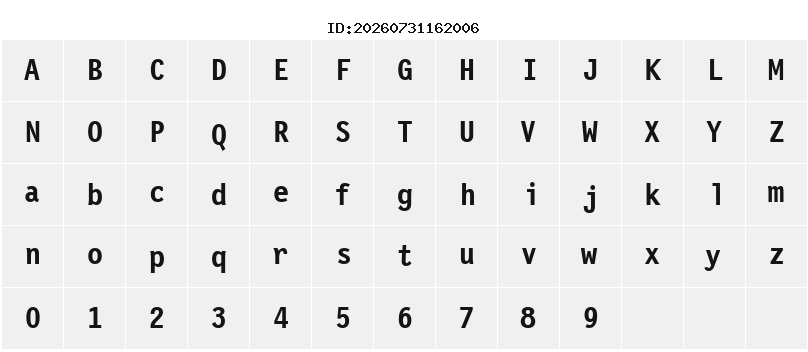
LettrGoth12 BT Preview
• Font Name: LettrGoth12 BT
• Font ID: Letter Gothic 12 Pitch Bold, Fixed Pitch 850
• Full Font Name: Letter Gothic 12 Pitch Bold BT
About LettrGoth12 BT.ttf
LettrGoth12 BT.ttf is a modern, elegant sans-serif font designed for ultimate readability and visual harmony. Perfect for branding, headlines, web design, and print materials.